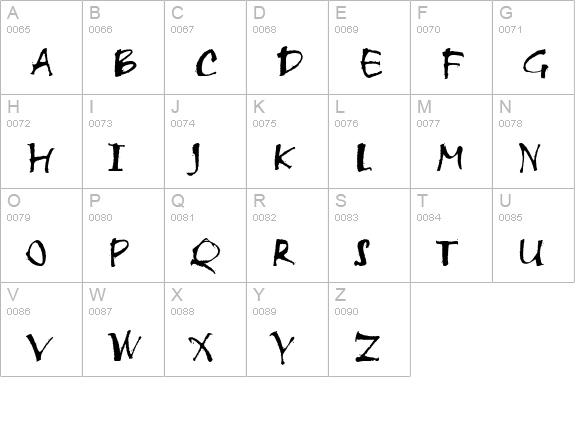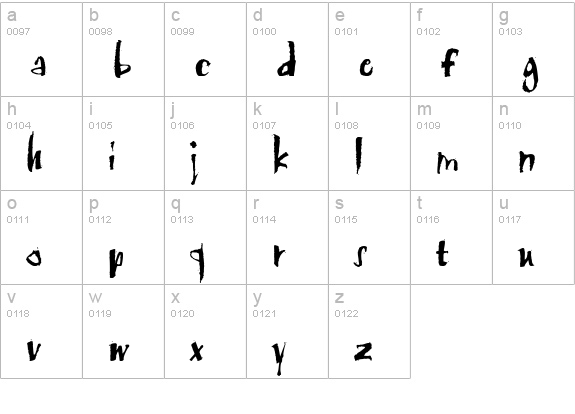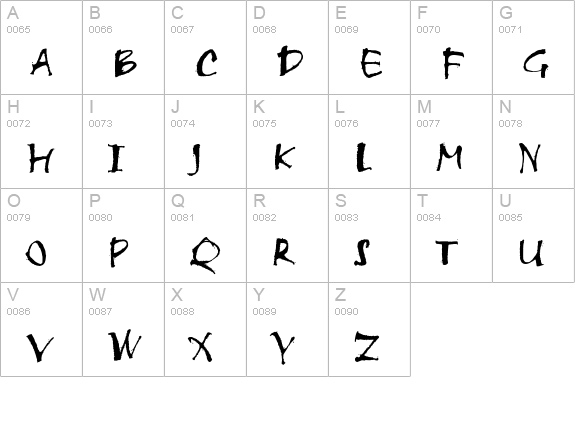
Introducing Scratch font, a stunningly unique typeface that will add a touch of creativity to any project. With its playful and hand-drawn style, Scratch font is perfect for adding a sense of whimsy and personality to your designs. This font features quirky and irregular letterforms, giving it a truly one-of-a-kind look. Each character has been carefully crafted to have a hand-drawn appearance, with imperfect lines and charming imperfections. This font will bring a sense of authenticity and warmth to your projects, making it ideal for anything from invitations and greeting cards to logos and branding. The best part? Scratch font is available for free! That's right, you can download this incredible font at no cost from FontsMarket.com. Whether you're a professional designer or a hobbyist, this font is yours to use and enjoy. With its wide range of glyphs and language support, Scratch font offers versatility and flexibility for all your design needs. So why wait? Download Scratch font today and let your creativity run wild. Whether you're working on a personal project or a client's, this font will bring a touch of magic to your designs. Don't miss out on this incredible opportunity to enhance your work with the beauty and charm of Scratch font. Get it now, for free, at FontsMarket.com.